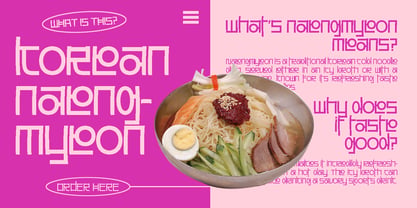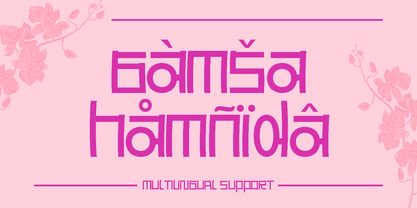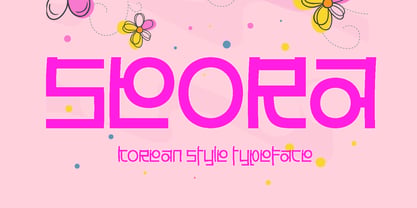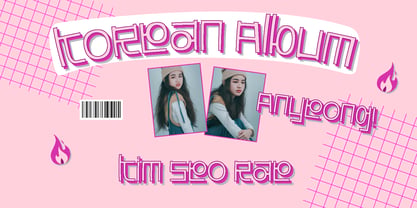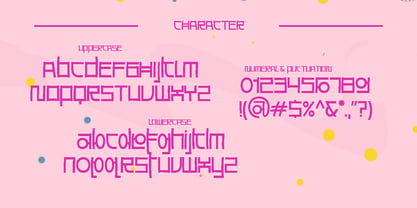
Seora
by Ceeskiiw
The Seora Font Family was designed by Cees Kiiw and published by Ceeskiiw. Seora contains 1 styles. More about this family
Seora is a futuristic Korean-inspired display typeface featuring geometric modular construction, square forms, and Hangul-influenced letter architecture. The font blends cyberpunk aesthetics with contemporary Korean design language, making it ideal for gaming, esports, K-pop visuals, technology branding, and sci-fi themed projects.
This font is a futuristic geometric display typeface with strong influences from cyberpunk, techno, arcade gaming, and digital interface design. The characters are built from angular modular shapes, creating a highly stylized and technological appearance.